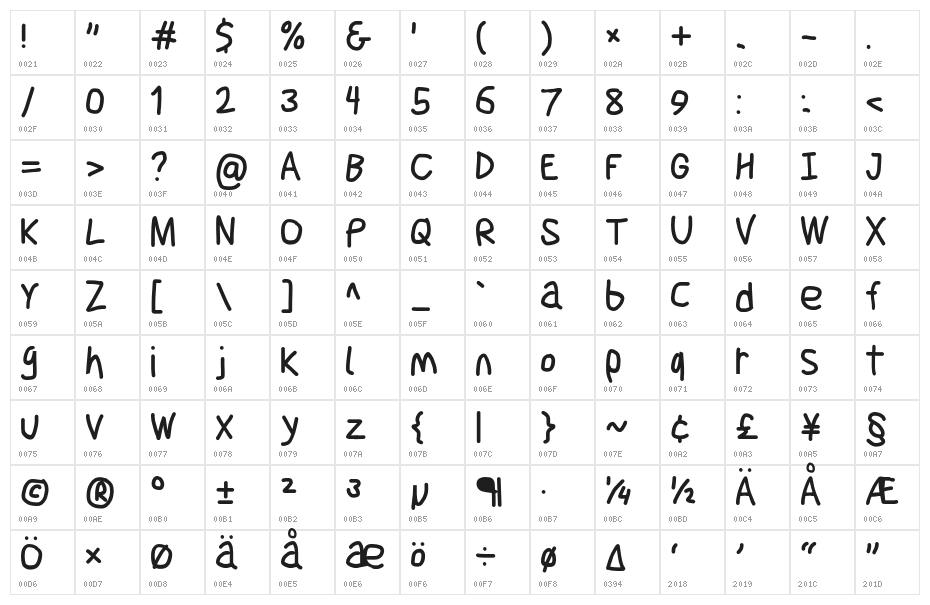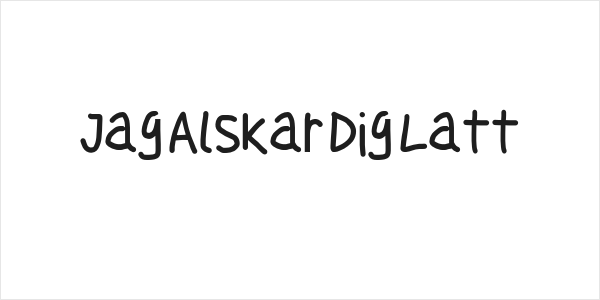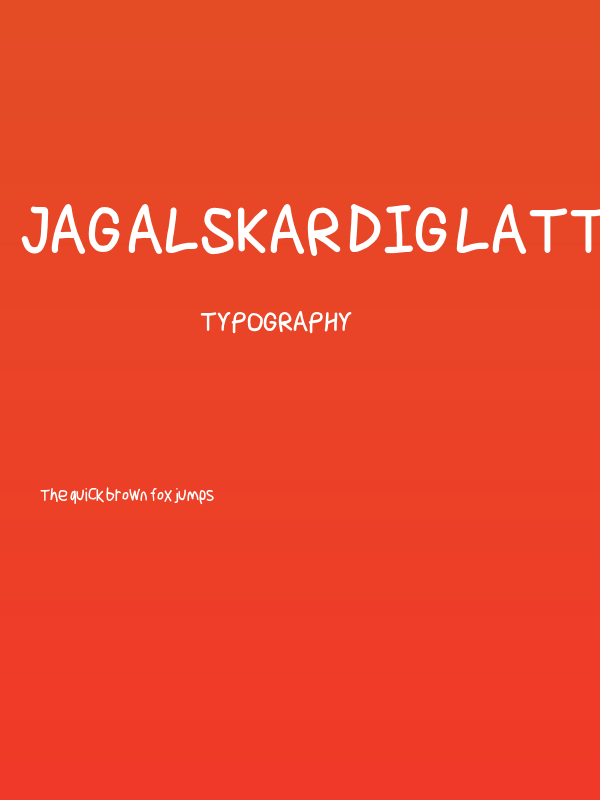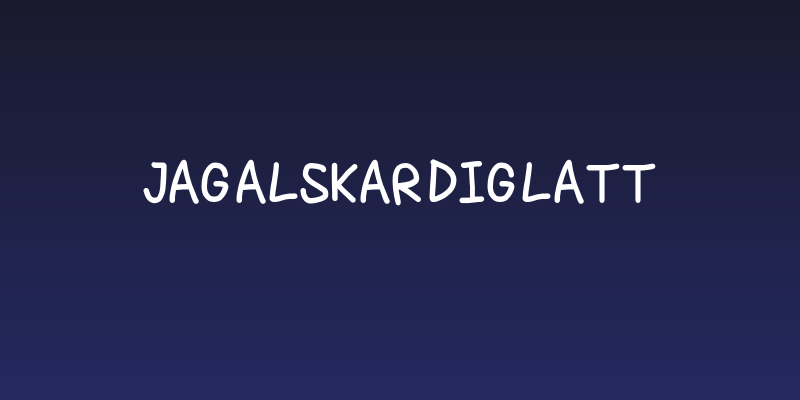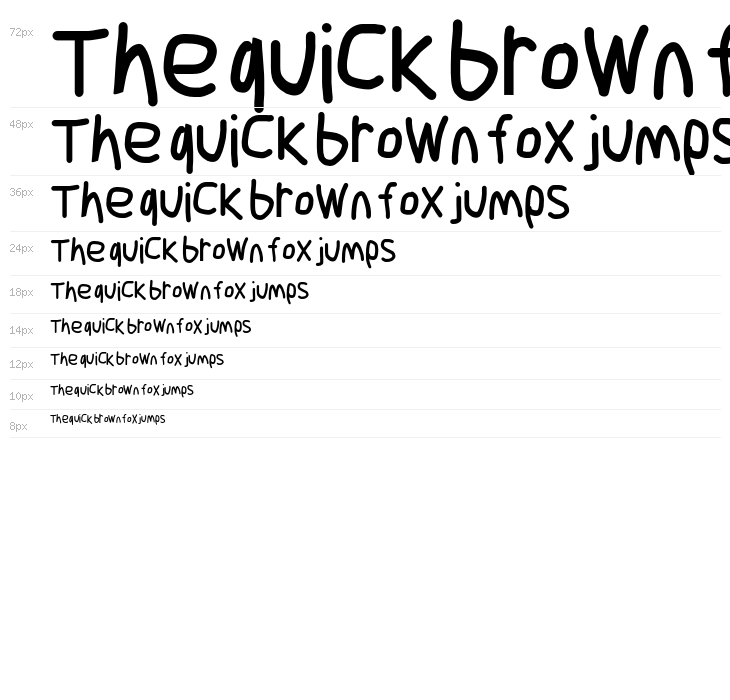
Jag Alskar Dig Latt Font
Jag Alskar Dig Latt Description
This font exudes a playful and casual handwritten style, characterized by its rounded and slightly irregular letterforms. The strokes are consistent in width, giving it a uniform appearance despite its informal nature. The uppercase and lowercase letters are well-proportioned, with a slight tilt that adds to its whimsical charm. The numerals and special characters maintain the same playful aesthetic, making it versatile for various uses. Its friendly and approachable design makes it ideal for projects that require a personal touch.
| Use Case | Headlines, Informal text, Personal projects |
| Proposed Projects | Ideal for children's books, greeting cards, personal blogs, and informal branding projects. |